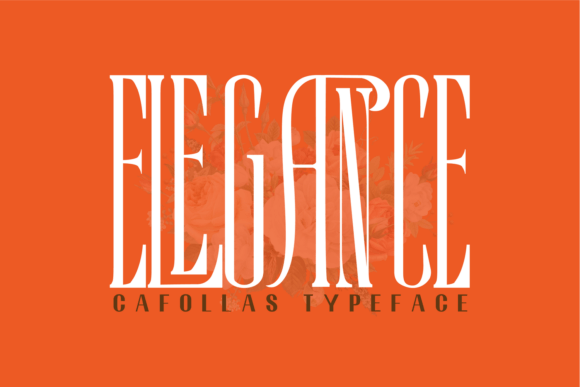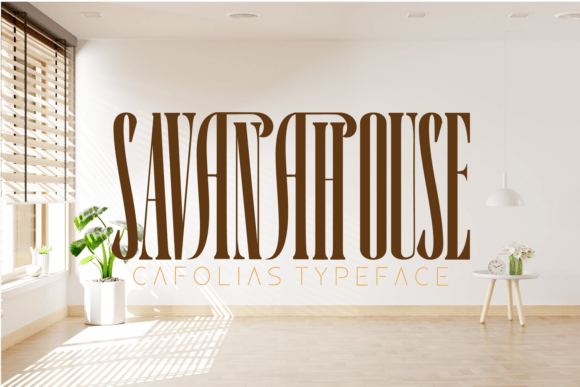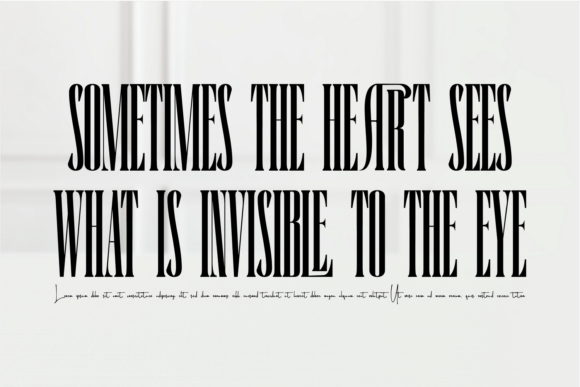
Cafollas Font
Cafollas Font is a condensed serif typeface created to be used for bold titles with distinctive shapes into a display fonts way to make it legible for contemporary use. It’s an extra condensed grotesque, made with its own unique character and form of a typeface. This font is perfect for Headlines and titles, digital advertisements, brochures and flyers, infographics and data visualizations, and many more.This font is PUA encoded which means you can access all glyphs and swashes effortlessly!